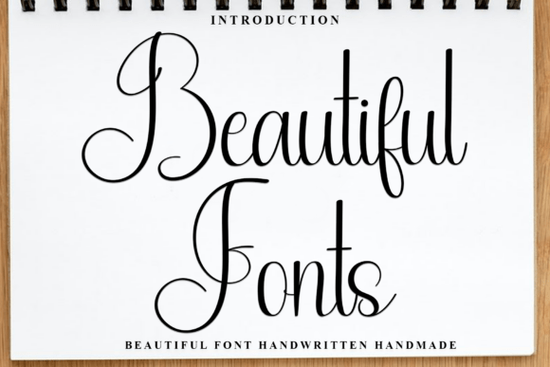
If you’ve been searching for a handwritten font that feels both personal and polished, Beautiful Fonts Font might be exactly what your next project needs. It’s not flashy or overly stylized instead, it leans into elegance with well-balanced letterforms that work just as well on wedding invitations as they do on Etsy shop banners or printable quote art. Whether you’re designing for clients, running a small business, or just making something special for yourself, this font adapts without losing its charm.
What makes this font stand out for real-world projects?
Handwritten fonts can sometimes feel messy or inconsistent, especially when scaled or printed. But Beautiful Fonts Font was designed with spacing and proportion in mind. Each character flows naturally into the next, which means you won’t need to manually adjust kerning every time you type a headline. That kind of reliability saves time especially if you’re batch-creating social media graphics or product mockups.
It also pairs beautifully with simpler sans-serifs or even other script fonts like Happy Rainbow Family or Roselya Script. Try using it for accent text think names on gift tags, quotes inside greeting cards, or overlay text on photos while keeping body copy clean and readable.
Who actually benefits from using this font?
- Print-on-demand sellers: Use it for custom mugs, tote bags, or phone cases where a personal touch matters.
- Crafters and DIYers: Perfect for vinyl cutting, sublimation, or hand-lettered-style digital prints.
- Small business owners: Add warmth to logos, packaging labels, or email headers without looking unprofessional.
- Teachers and event planners: Create classroom posters, birthday invites, or signage that feels inviting, not corporate.
How does it compare to other popular script fonts?
Not all script fonts are created equal. Some, like Chicago Downton, lean bold and retro, while others, like Bee Kind Duo, offer dual styles for contrast. Beautiful Fonts Font sits comfortably in the middle refined but approachable. It doesn’t scream for attention; it invites the viewer in.
If you’ve ever tried Barbie Font for fun projects but needed something more versatile for client work, this is a great step up. It keeps the personality without limiting where you can use it.
Any tips for getting the most out of this font?
- Use sparingly. Even elegant scripts can overwhelm if used for long paragraphs. Stick to headlines, logos, or short phrases.
- Adjust tracking slightly. A tiny increase in letter spacing (5–10%) often improves readability in print or at small sizes.
- Pair with texture. Try placing it over watercolor backgrounds, linen textures, or soft gradients the contrast enhances its delicate quality.
- Test print first. Always do a test print if you’re using it for physical products. Some printers render thin strokes differently than screens show.
One thing users consistently mention? It photographs well. If you’re creating content for Instagram or product listings, you won’t need heavy editing to make the text pop it already has natural presence.
Where should you start if you’re new to using script fonts?
Start small. Pick one project maybe a holiday card, a shop announcement banner, or a printable planner sticker and try Beautiful Fonts Font there. See how it feels to work with. Does it slow you down? Probably not. Does it elevate the final result? Almost certainly.
And if you like how it performs, explore similar styles like those mentioned above. Each has its own rhythm and mood, and mixing them thoughtfully can give your brand or craft line a cohesive yet dynamic look.